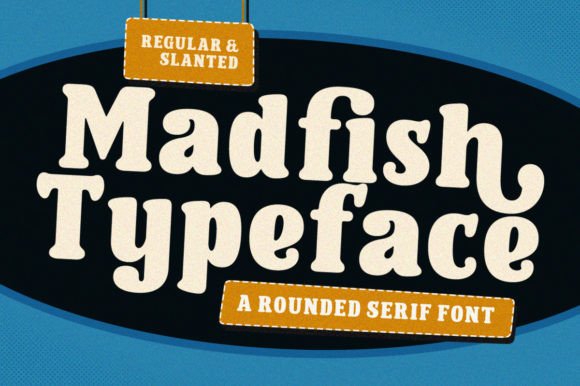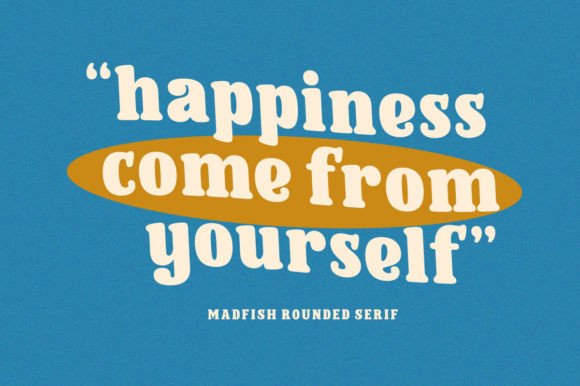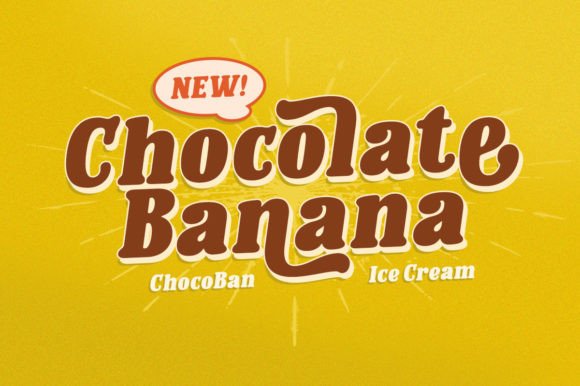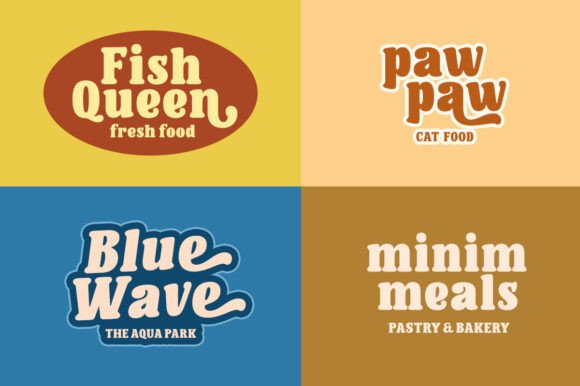
Madfish Typeface Font
About the Madfish Typeface Font
Discover the charm of Madfish Typeface Font. This font is a perfect blend of modern aesthetics and classic appeal. Medfish Typeface is a stunning font with a unique combination of rounded serifs and bold strokes, giving it a playful yet sophisticated look. Inspired by vintage design, this font has a retro style that adds a touch of timeless elegance to any project.
Madfish Typeface excels in headline applications, short-form text on packaging, and branding materials where a touch of vintage flair is desired. Its playful yet sophisticated nature makes it ideal for projects targeting a younger, discerning audience interested in retro aesthetics. Avoid using it for body text or long paragraphs; its boldness can become overwhelming and hinder readability in extended use.
Consider pairing Madfish with a clean sans-serif like Open Sans for a balanced contrast, or a more geometric sans-serif like Futura for a modern twist on the retro theme. A delicate script font could add an extra layer of elegance for special applications, offering a visually pleasing contrast to Madfish’s bolder strokes.
The overall personality of Madfish is playful and sophisticated—a retro-inspired design with a bold, yet approachable feel. Its unique character makes it well-suited for brands and projects conveying a sense of timeless style with a touch of youthful energy.
Madfish Typeface Font Usage Examples
Madfish Typeface Font Example